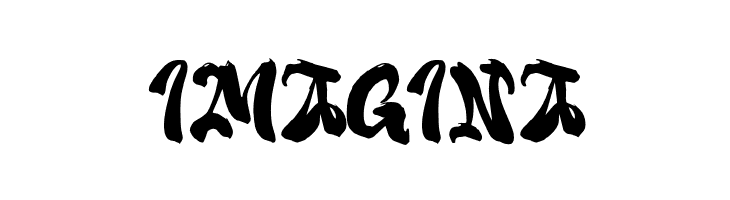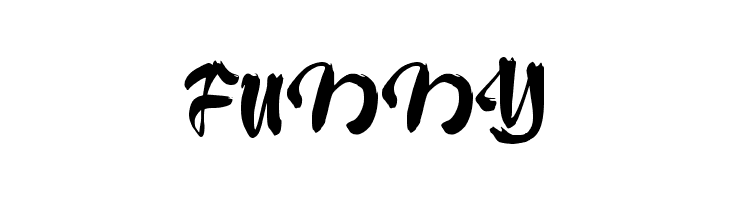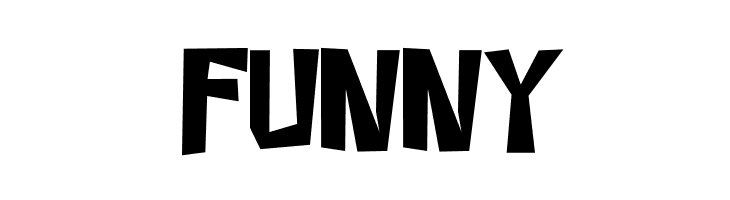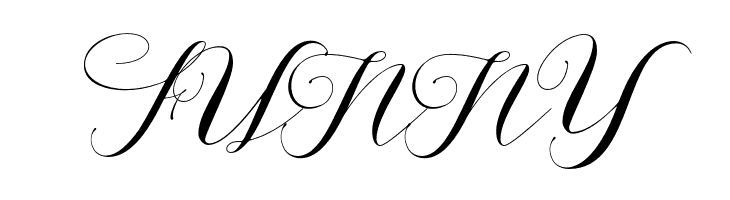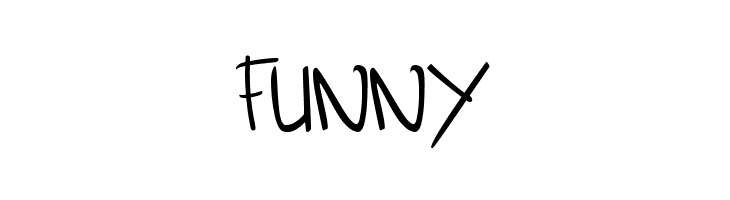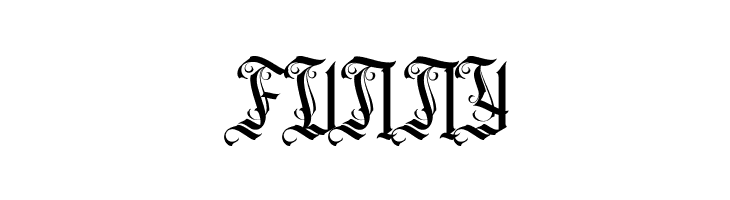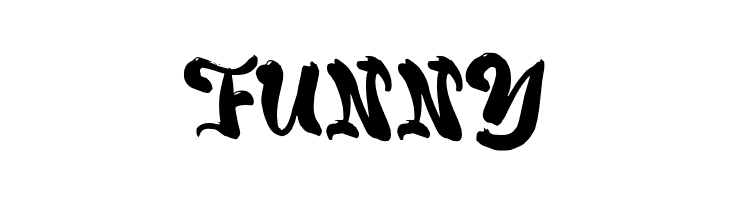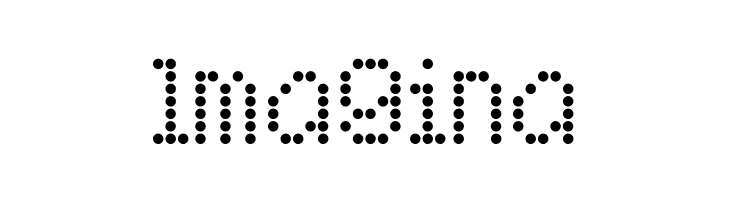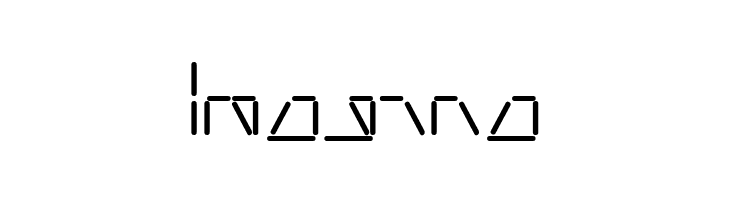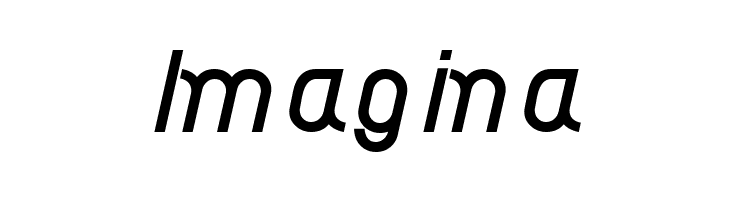
A bold, decorative font with intricate curves and thick strokes.
A bold, blackletter-inspired font with dramatic curves and thick strokes.
A playful, casual handwritten font with dynamic strokes and a friendly appearance.
A playful, handwritten font with rounded edges and a lively, informal style.
A playful, handwritten font with rounded, irregular characters.
An elegant script font with intricate swirls and flowing design.
A bold, geometric font with abstract patterns and high contrast.
A classic serif font with a condensed style and moderate contrast, ideal for formal use.
A serif font with italic styling and shadow effect, offering elegance and readability.
A classic serif font with an oblique slant and medium weight, ideal for elegant and formal designs.
A bold, playful font with layered, colorful designs and rounded edges.
A modern, artistic font with elongated, narrow characters and unique shapes.
A bold, decorative font with a gothic flair and unique serifs.
A modern-vintage font with tall, narrow letterforms and unique curved strokes.
A bold, angular font with a modern and edgy style.
A playful, informal handwritten font with dynamic strokes and a friendly appearance.
A bold, calligraphic font with dynamic curves and expressive strokes.
A bold, expressive script font with dynamic, cursive strokes.
An ornate and decorative blackletter-style font with intricate flourishes.
A bold, graffiti-inspired font with dynamic, angular characters.
An elegant, flowing script font with intricate swashes and a sophisticated style.